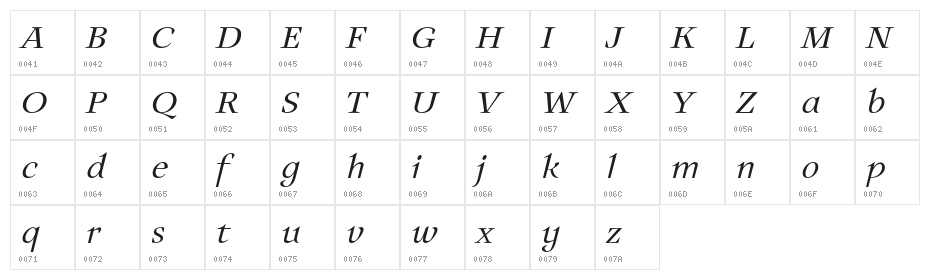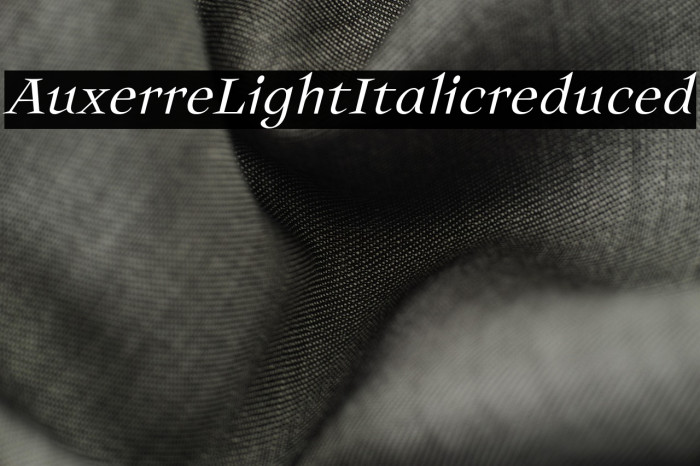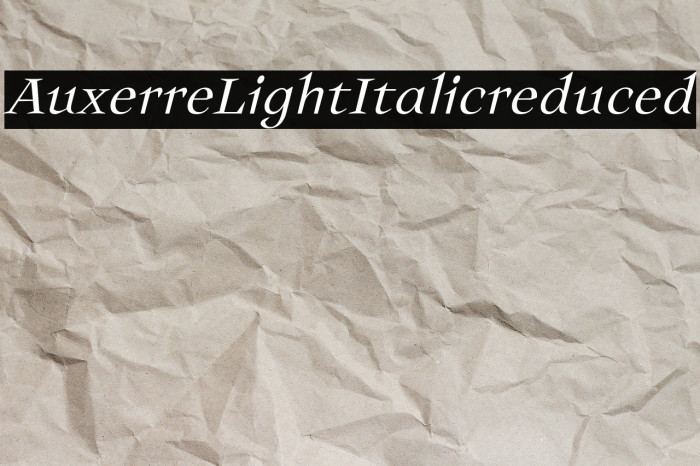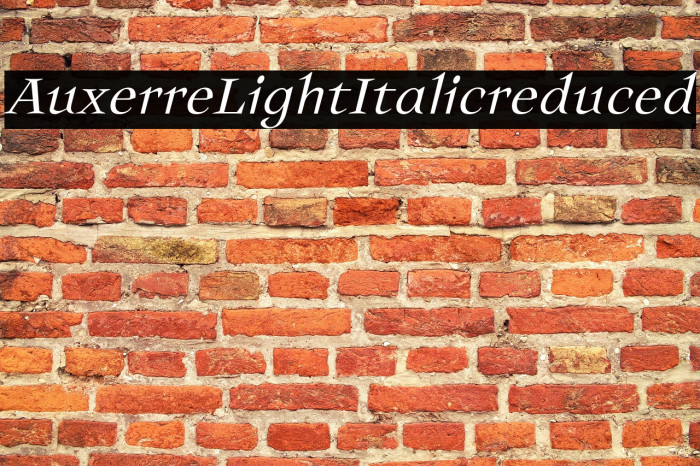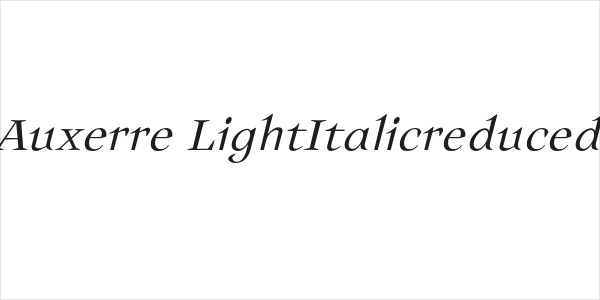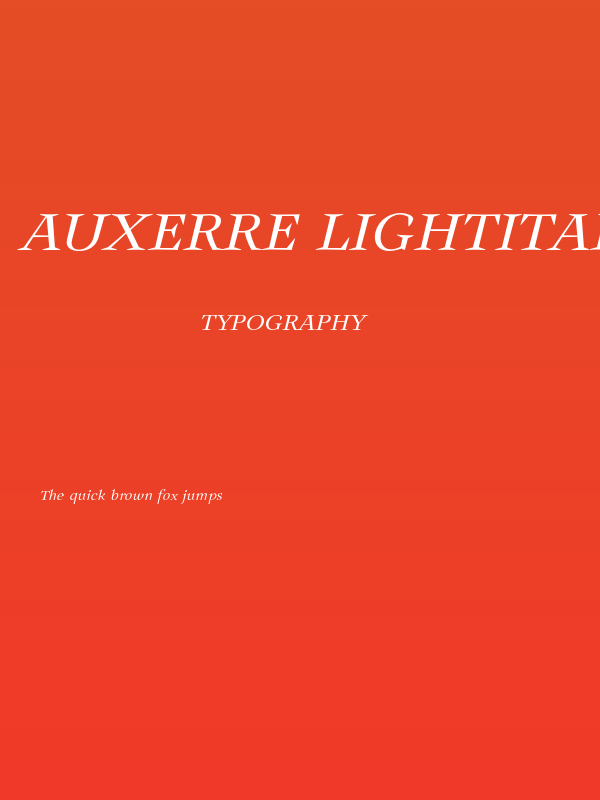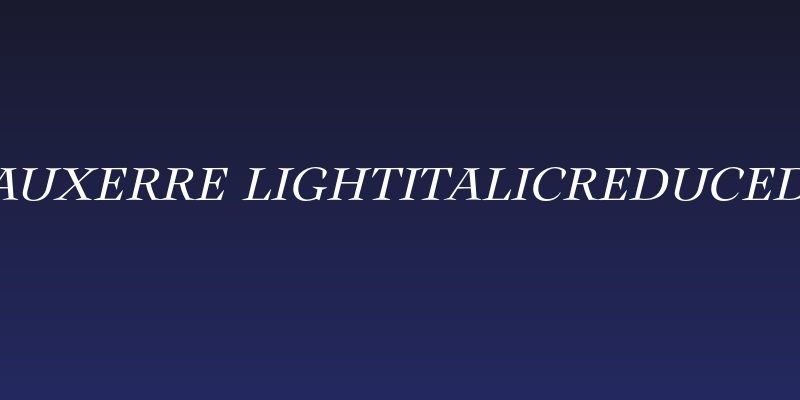
Auxerre-LightItalicreduced Font
Auxerre-LightItalicreduced Description
This font exhibits a refined and elegant style with a light, italicized form. The characters are gracefully slanted, offering a sense of motion and sophistication. The serifs are subtle yet distinct, adding a classic touch to the overall appearance. The strokes are consistently thin, contributing to a delicate and airy feel. This font is well-suited for conveying elegance and formality, making it ideal for upscale branding or editorial design. The spacing between characters is balanced, ensuring readability while maintaining its stylish flair.
Overall StyleClassic
Use CaseHeadlines, Editorial design, Invitations
Proposed ProjectsIdeal for wedding invitations, luxury branding, editorial layouts, and formal event programs.